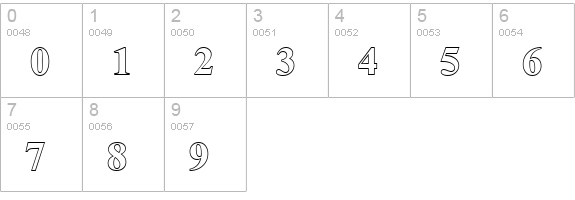
QTTimeOutline Regular Font Details
QTTimeOutline Regular is the standard, neutral variant in the QTTimeOutline typeface family \xE2\x80\x94 well suited to general body text, paragraphs, and standard typographic work.
Introducing QTTimeOutline Regular, a versatile and stylish font that will bring a touch of sophistication to any project. With its clean lines and elegant curves, this typeface is perfect for adding a modern and professional look to your designs. The QTTimeOutline Regular font offers a wide range of characters, making it suitable for various purposes, whether it's for headlines, body text, or even logos. Its balanced proportions ensure excellent readability in both small and large sizes, making it a practical choice for both print and digital media. What sets QTTimeOutline Regular apart is its unique blend of contemporary design and timeless appeal. This font manages to be both trendy and classic, making it a go-to choice for designers looking to make a lasting impression. And the best part? QTTimeOutline Regular is freely available to download at FontsMarket.com. This means that you can enjoy the benefits of this exceptional font without any cost or limitations. Whether you're a professional designer or simply someone who enjoys experimenting with typography, QTTimeOutline Regular is a must-have addition to your font library. Don't miss out on the opportunity to enhance your projects with this stunning font. Download QTTimeOutline Regular today and elevate your designs to a whole new level of excellence.